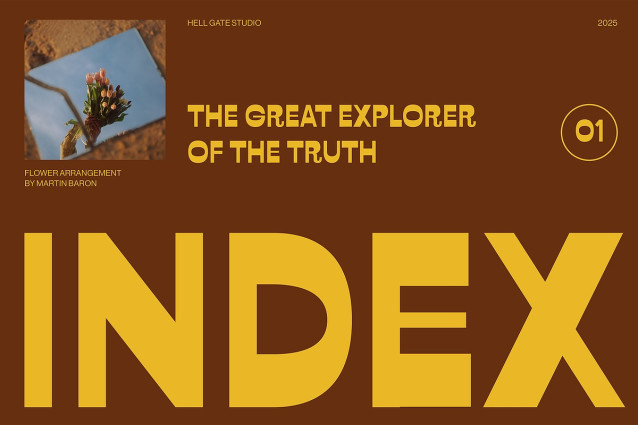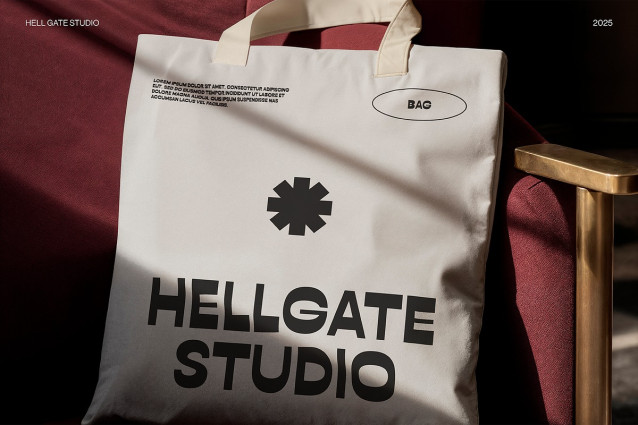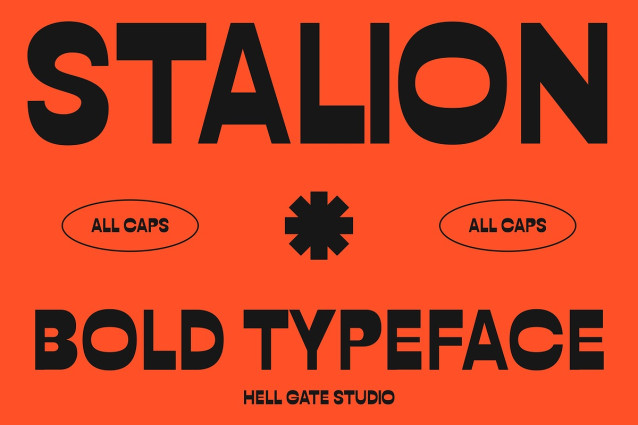
Stalion Font
Stallion Font: Bring back nostalgia! This exclusive uppercase font is perfect for retro themes. Edit text and colors easily and seamlessly as you travel back in time.